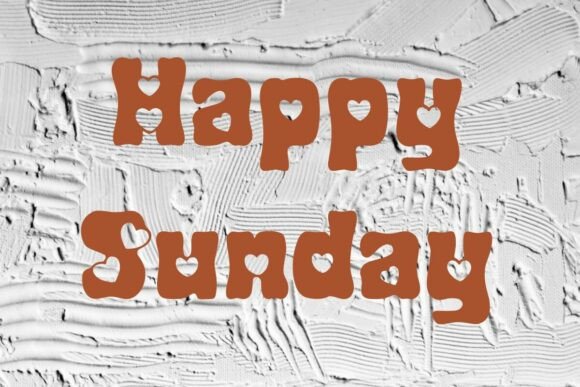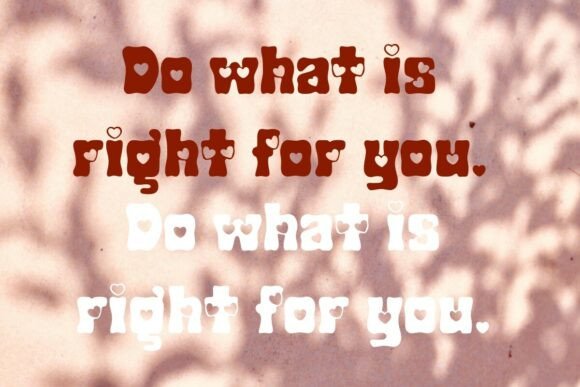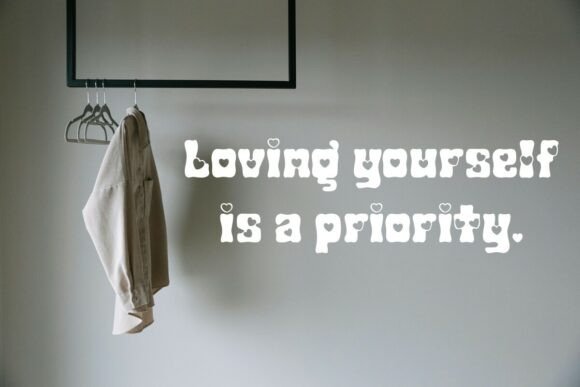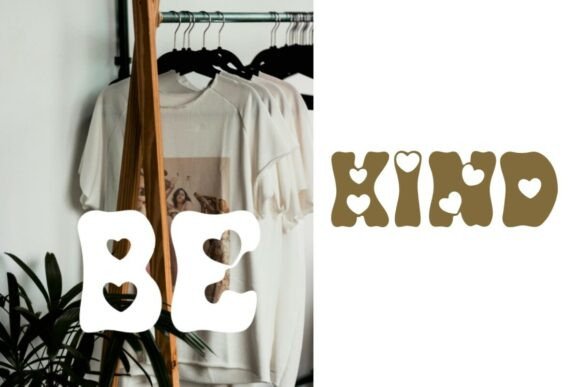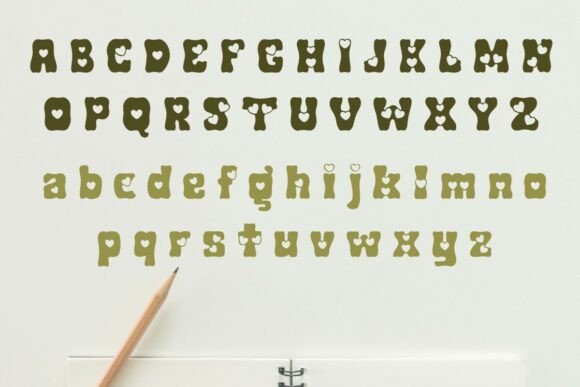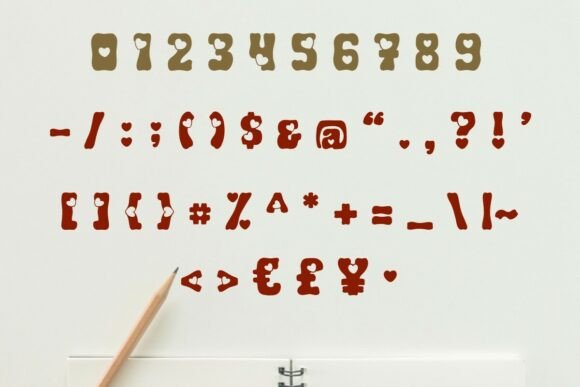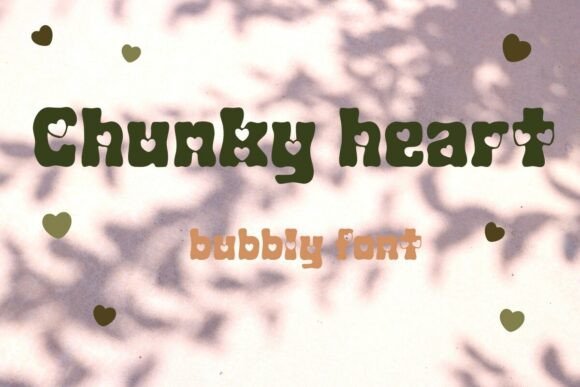
Spread the Love with the Chunky Heart Font: A Sweet and Bubbly Typeface for Designers and Crafters
Are you looking for a font that exudes love, playfulness, and sweetness? Look no further than the Chunky Heart font, a decorative display typeface that’s perfect for Valentine’s Day designs, romantic projects, and brands that want to project a fun and bubbly image. This adorable font features cut-out heart details in every letter, making it a unique and recognizable choice for designers and crafters alike.
The Characteristics of the Chunky Heart Font
The Chunky Heart font boasts thick, rounded forms that give it a soft and approachable feel. The negative-space hearts in every letter add a decorative element that’s both playful and eye-catching. This font is perfect for designs that need to pop, such as sticker packs, apparel for kids, and social media content. The Chunky Heart font is also highly versatile, making it suitable for a wide range of projects, from romantic getaways to kids’ party invitations.
Maximizing the Cuteness of the Chunky Heart Font
To maximize the cuteness of the Chunky Heart font, pair it with a “candy-coated” color palette featuring bright pinks, purples, and reds. These colors will enhance the playful and sweet vibe of the font, making it perfect for Valentine’s Day designs and romantic projects. You can also experiment with different color combinations to create a unique look that suits your brand or project.
Enhancing the Chunky Heart Typeface
To take your designs to the next level, try layering the Chunky Heart font over heart-patterned backgrounds or pairing it with simple “dingbat” icons. This will create a cohesive, love-themed aesthetic that’s perfect for designers and crafters. The Chunky Heart font is also a great choice for Cricut and Silhouette crafters looking to make custom stickers, cards, and other crafts.
Using the Chunky Heart Font for Various Projects
The Chunky Heart font is perfect for a wide range of projects, including:
- Valentine’s Day designs: Create romantic cards, invitations, and social media posts with the Chunky Heart font.
- Kids’ apparel and accessories: Use the Chunky Heart font to create adorable t-shirts, stickers, and other kids’ products.
- Social media content: Add a playful touch to your social media posts with the Chunky Heart font.
- Sticker packs and crafts: Use the Chunky Heart font to create custom stickers and other crafts with Cricut and Silhouette machines.
Tips for Working with the Chunky Heart Font
Here are some tips for working with the Chunky Heart font:
- Experiment with different colors and combinations to find the perfect look for your project.
- Use the Chunky Heart font in combination with other fonts to create a unique and eye-catching design.
- Don’t be afraid to get creative and try new things – the Chunky Heart font is a versatile and playful typeface that’s perfect for experimentation.
The Chunky Heart font is a sweet and bubbly typeface that’s perfect for designers and crafters looking to add a playful touch to their projects. With its thick, rounded forms and negative-space hearts, this font is sure to make your designs pop. Whether you’re working on a Valentine’s Day project, a romantic getaway, or a kids’ party invitation, the Chunky Heart font is the ultimate choice for creating adorable and eye-catching designs. So why wait? Spread the love with the Chunky Heart font and take your designs to the next level!